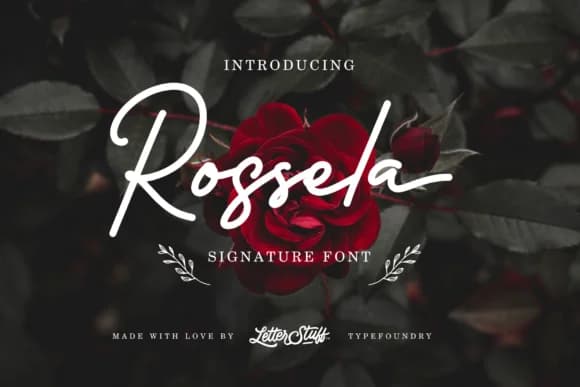
Rossela Font by herbanuts is a flowing script typeface that captures the authentic beauty of natural handwriting with refined precision. The design features smooth, organic curves that work exceptionally well for creating sophisticated wedding invitation suites and personalized greeting card designs that make lasting impressions. Its inherent rhythm and fluidity make it perfect for boutique branding applications, from artisan perfume labels to custom stationery sets, where authentic handwritten character strengthens brand identity. The typeface includes Rossela Alt variations, offering designers additional options for creating dynamic compositions, layered text effects, or adding visual interest to specialty packaging designs for handmade and artisan goods.
Beyond traditional print applications, Rossela's signature-style letterforms shine in social media graphics where personal, handwritten touches help brands connect authentically with their audience. The font's clean execution and consistent character construction ensure readable, professional results across various scales and contexts. Whether designing wedding favor tags, boutique cosmetics packaging, custom monogram stationery, or event signage, this script font delivers the refined handwritten aesthetic that clients seeking that premium, personal touch truly appreciate.
Rossela Font is a script font that shines as a display or heading face. Pair it with a clean sans-serif or serif font for body text β the contrast creates a clear hierarchy while the two styles stay balanced and easy to read.
Rossela Font